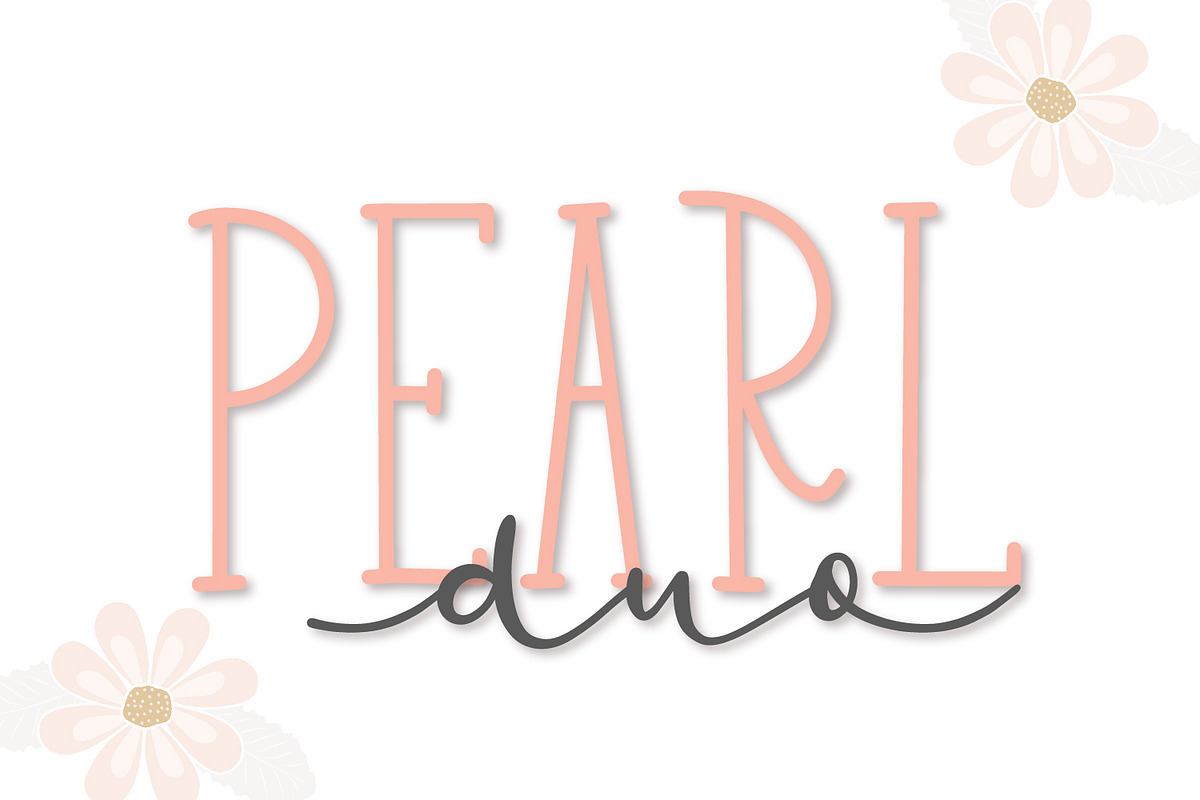
Pearl Duo - Script & Print Font Free Download is a charming and versatile font duo that combines the elegance of a script font with the boldness of a print font. Perfect for creating stylish logos, invitations, branding, and social media content, this duo offers endless design possibilities. The script font adds a flowing, personal touch, while the print font provides a clean and modern feel, making it ideal for projects that require a balance of creativity and clarity. Whether you’re working on a wedding invitation, a contemporary brand, or a creative campaign, Pearl Duo - Script & Print Font Free Download lets you experiment with its unique combination in personal projects before purchasing a commercial license. Add elegance and flexibility to your designs with this beautifully crafted font duo.